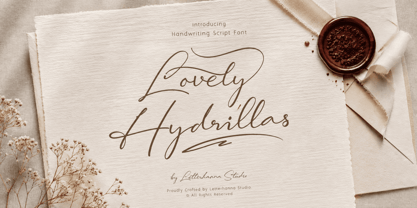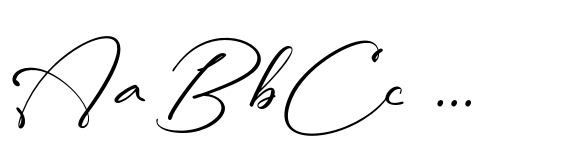
Lovely Hydrillas
by Letterhanna Studio
The Lovely Hydrillas Font Family was designed by Rinaldo Hasibuan and published by Letterhanna Studio. Lovely Hydrillas contains 1 styles.
Lovely Hydrillas Font is a modern handwritten font loaded with 55 ligatures for that handwriting look. Lovely Hydrillas Script Font can be used for wedding invitations and wedding calligraphy, feminine or organic logos, small business branding, packaging, and more!
Designers: Rinaldo Hasibuan
Publisher: Letterhanna Studio
Foundry: Letterhanna Studio
Design Owner: Letterhanna Studio
Letterhanna Studio is a font designer from Yogyakarta, Indonesia, we specialize in handwritten script fonts, including lettering fonts, calligraphy fonts and brush fonts. Our fonts are carefully crafted to mimic natural handwriting, with a variety of ligatures so that each glyphs looks unique. Our fonts equipped with swashes to use as the beginning or ending swash of a word, and also equipped with underline swashes.